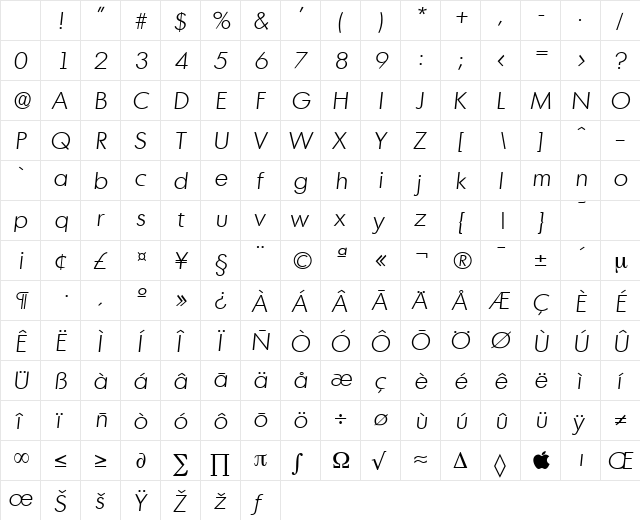
Montreal-Serial-Light RegularItalic Free Font
Montreal-Serial-Light RegularItalic
Style: RegularItalic
Montreal-Serial-Light Family
Complete Montreal-Serial-Light RegularItalic glyph index. Displaying only characters natively supported by Montreal-Serial-Light RegularItalic font.
Design Context for Montreal-Serial-Light
Montreal-Serial-Light is a composed and adaptable typeface that performs quietly and consistently across a wide range of design contexts. The slanted form adds forward momentum and visual energy. Its slender proportions lend an understated elegance to any composition.